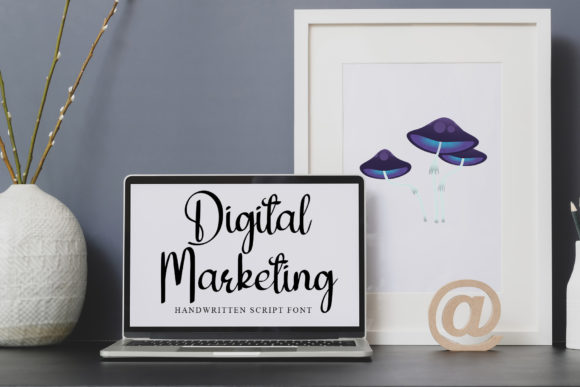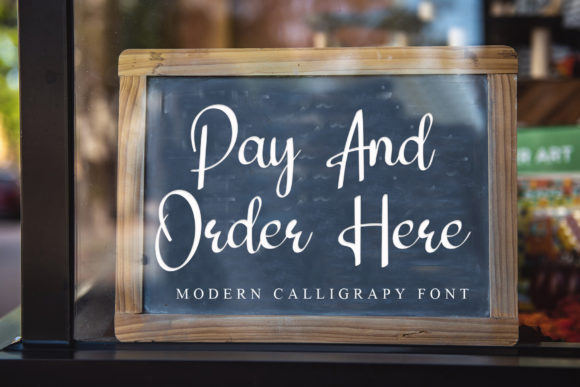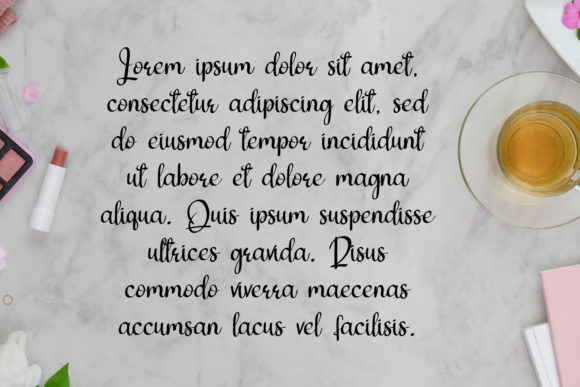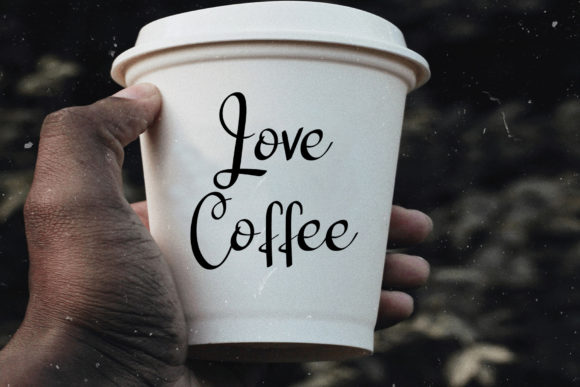
About Simple Rainbow Font
Simple Rainbow is a lovely script font featuring charming, playful characters that seem to dance along the baseline. Add this font to your most creative ideas, and notice how it makes them stand out!